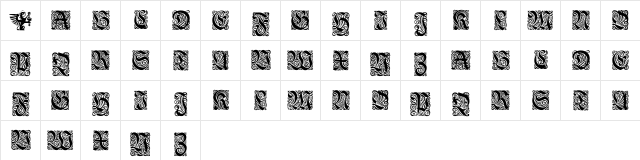
Ehmcke-Fraktur Initialen Regular
| Designer | Dieter Steffmann |
Design Context for Ehmcke-Fraktur Initialen Typeface
Ehmcke-Fraktur Initialen draws on the rich tradition of blackletter calligraphy, with dense, angular strokes that evoke medieval manuscripts and old-world craftsmanship.
A natural fit for music packaging, gothic editorial design, and any project that needs historical weight.
Font Pairing: Pair with a clean neutral sans-serif for body copy to let Ehmcke-Fraktur Initialen's character lead without overwhelming the composition.
Pro Tip: Reserve Ehmcke-Fraktur Initialen for display and logo use — pair it with a clean sans-serif for body copy to prevent the composition from feeling oppressive.